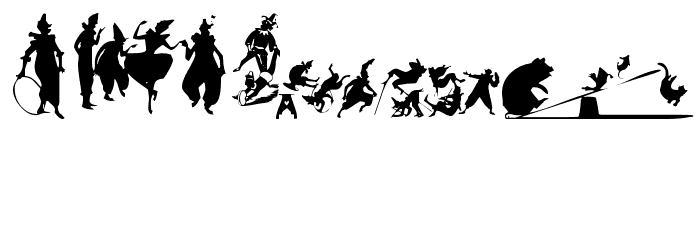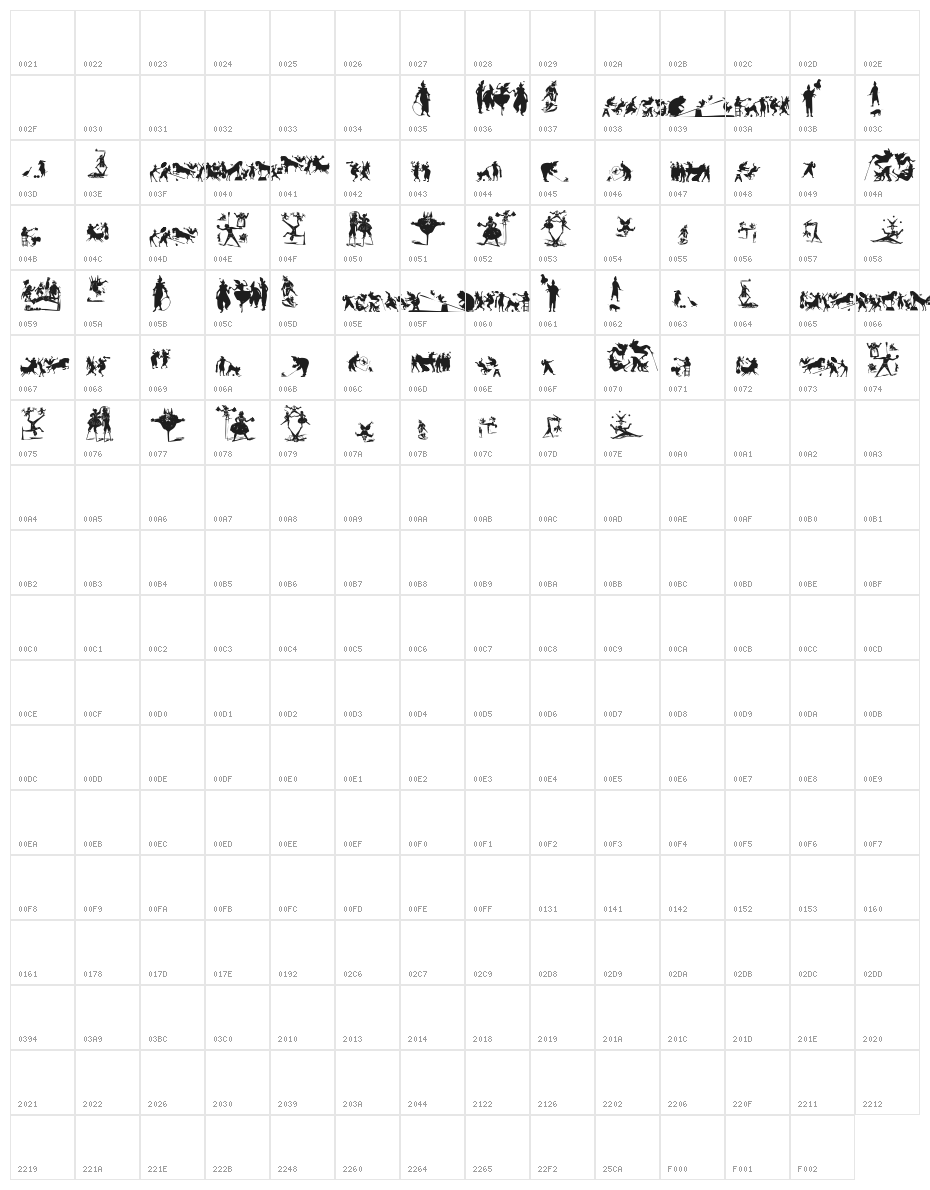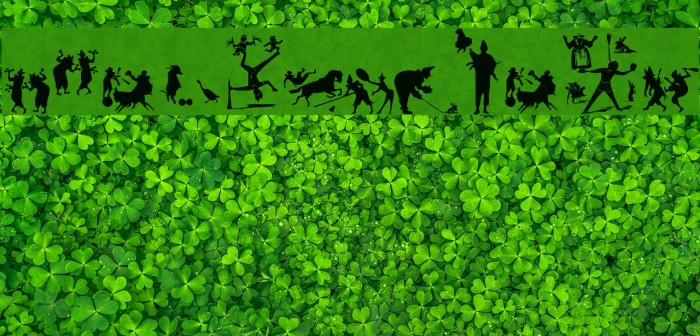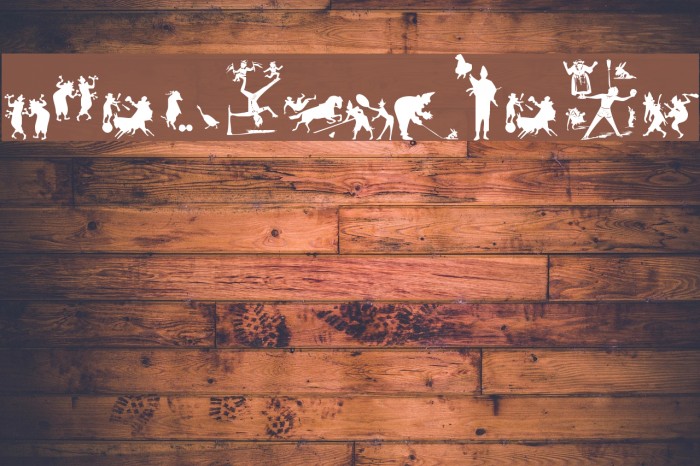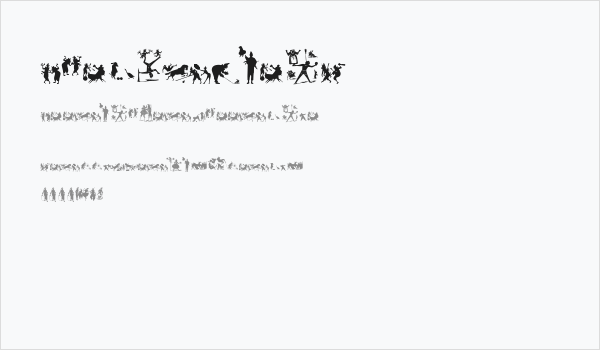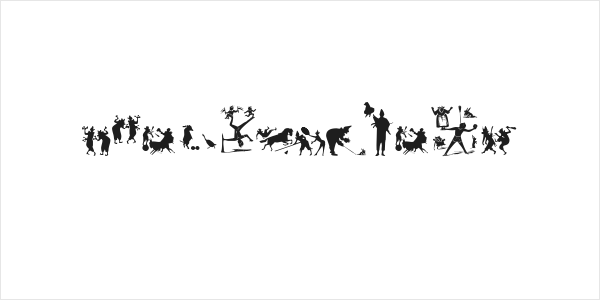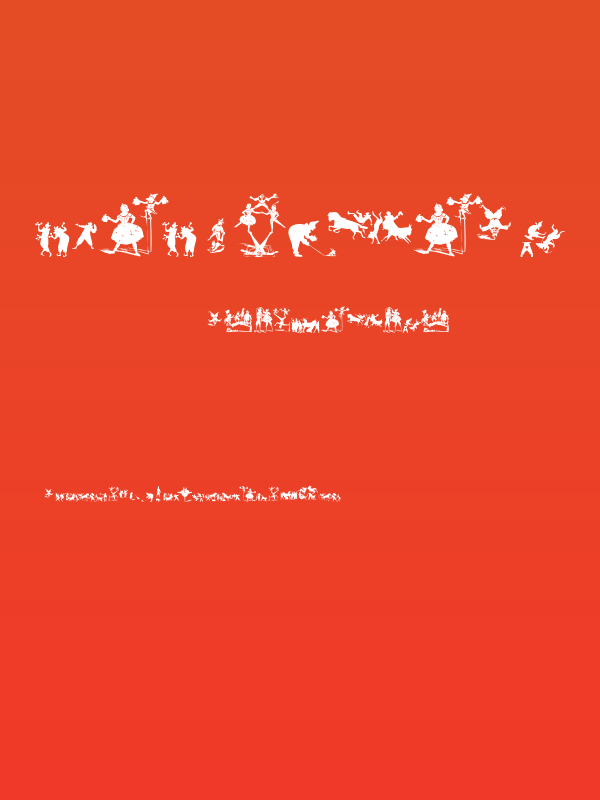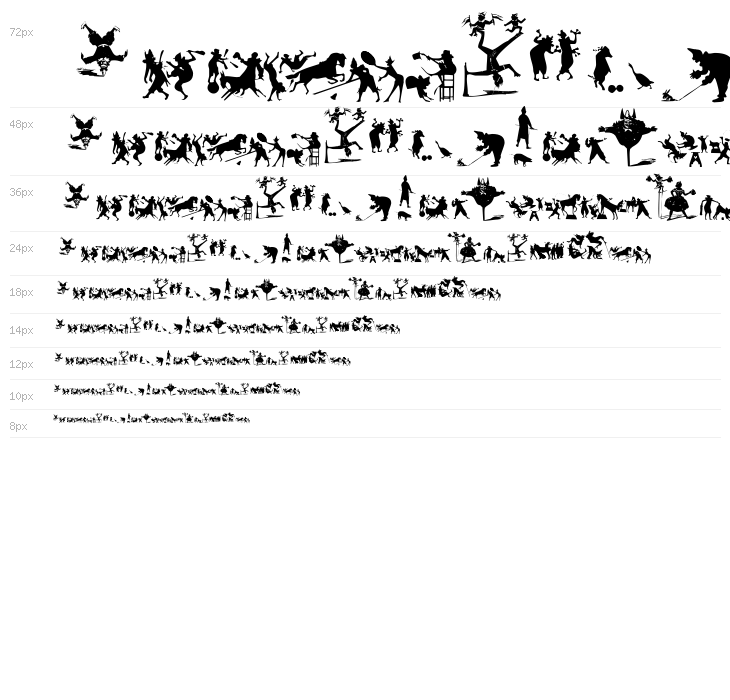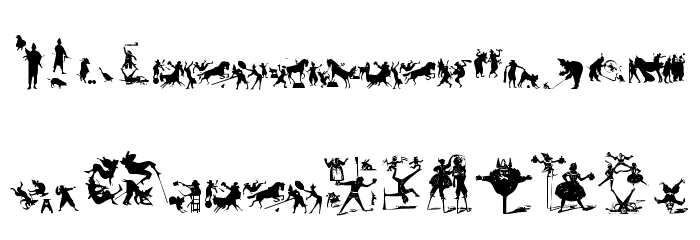
CircusEarth Font
CircusEarth Description
A highly decorative and playful font composed of intricate circus-themed silhouettes, including performers, animals, and various acts, each character uniquely illustrated with dynamic poses and whimsical details.
| Overall Style | Decorative, Whimsical, Playful |
| Use Case | Headlines, Logos, Posters, Themed Graphics |
| Proposed Projects | Posters, event invitations, childrenΓ’β¬β’s books, themed branding, party decor, circus or festival promotions. |